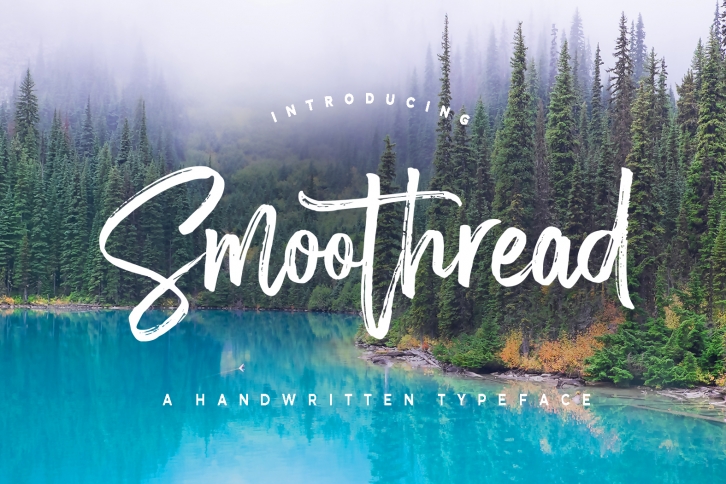
Smoothread is a great font that was designed by Dhan Studio. Imagine the amount of combinations you can create using this font! The archive is 16.68 MB and it was released on June 13, 2018. Smoothread looks beautiful on wedding invitations, greeting cards, logos, posters, labels, t-shirt designs, logos, business cards and is perfect for use in ink or watercolor works, fashion, magazines, packaging and food menus, children's books and more!